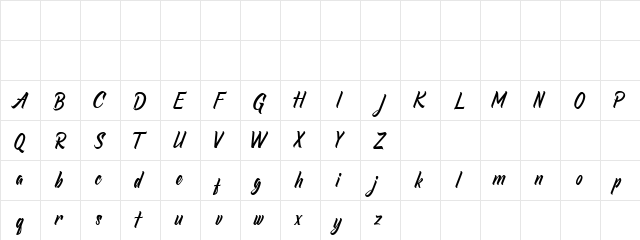
Redlineryh Regular
| Designer | Wahyu Saputra |
Design Context for Redlineryh Typeface
Redlineryh is a composed and adaptable typeface that performs quietly and consistently across a wide range of design contexts.